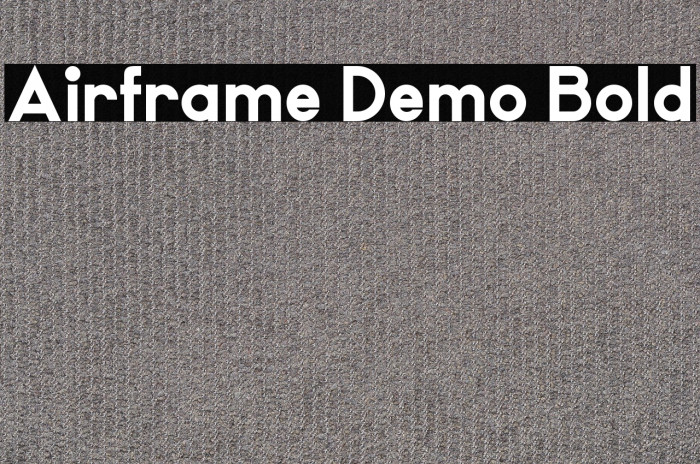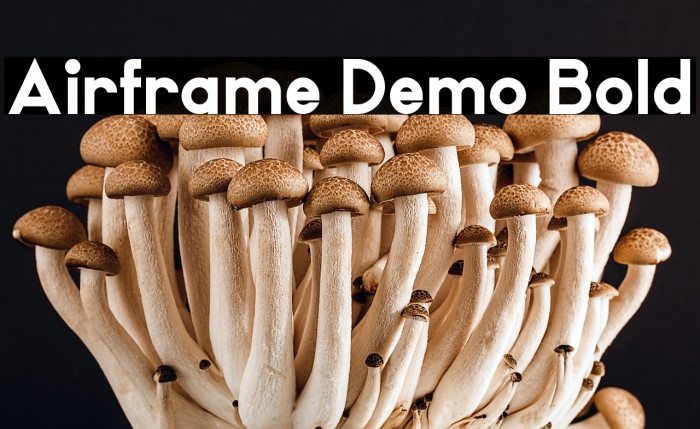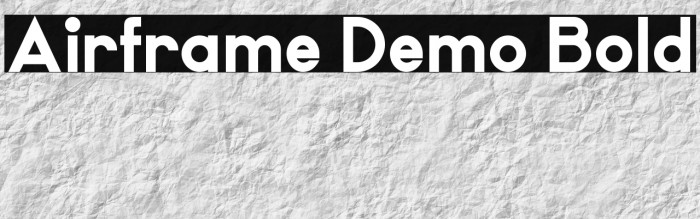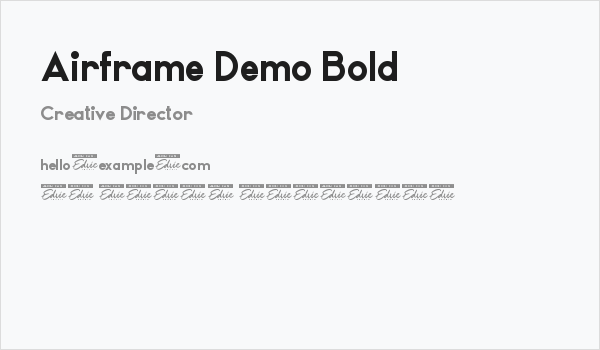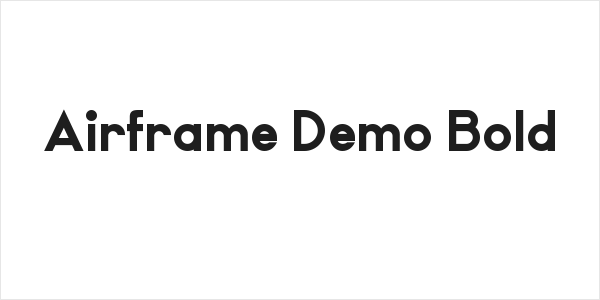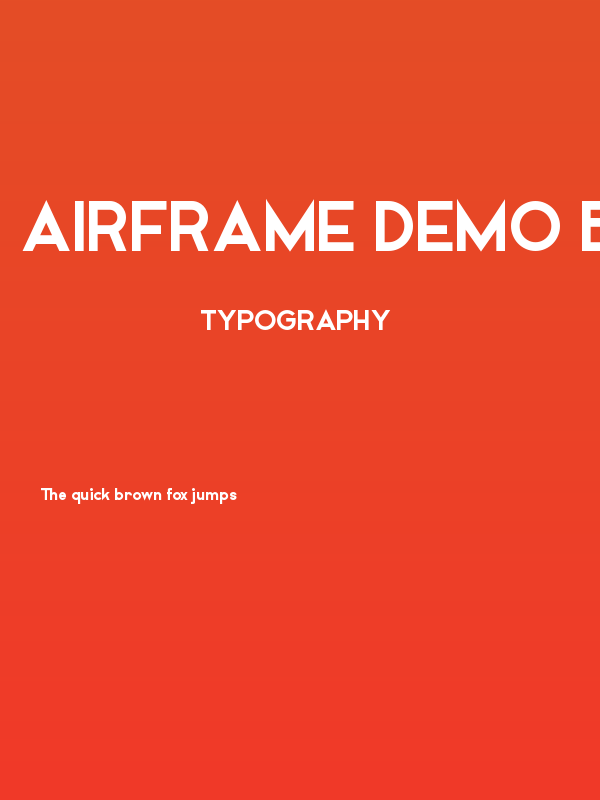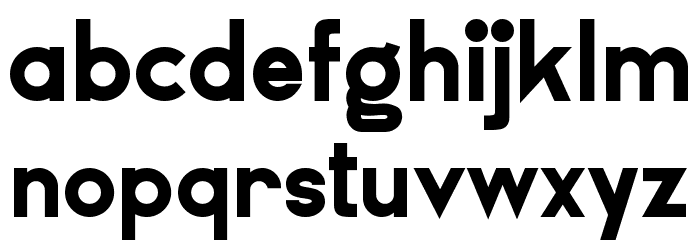
Airframe Demo Bold Font
Airframe Demo Bold Description
This font features a bold and modern sans-serif style with clean lines and a strong presence. The uppercase and lowercase letters are well-proportioned, offering a balanced look that is both professional and approachable. The characters are evenly spaced, providing excellent readability. The font's bold weight makes it ideal for making a statement, while its simplicity ensures versatility across various design contexts. The overall aesthetic is contemporary, making it suitable for a wide range of applications from digital to print media.
| Proposed Projects | Ideal for branding, advertising, headlines, and digital media projects. |